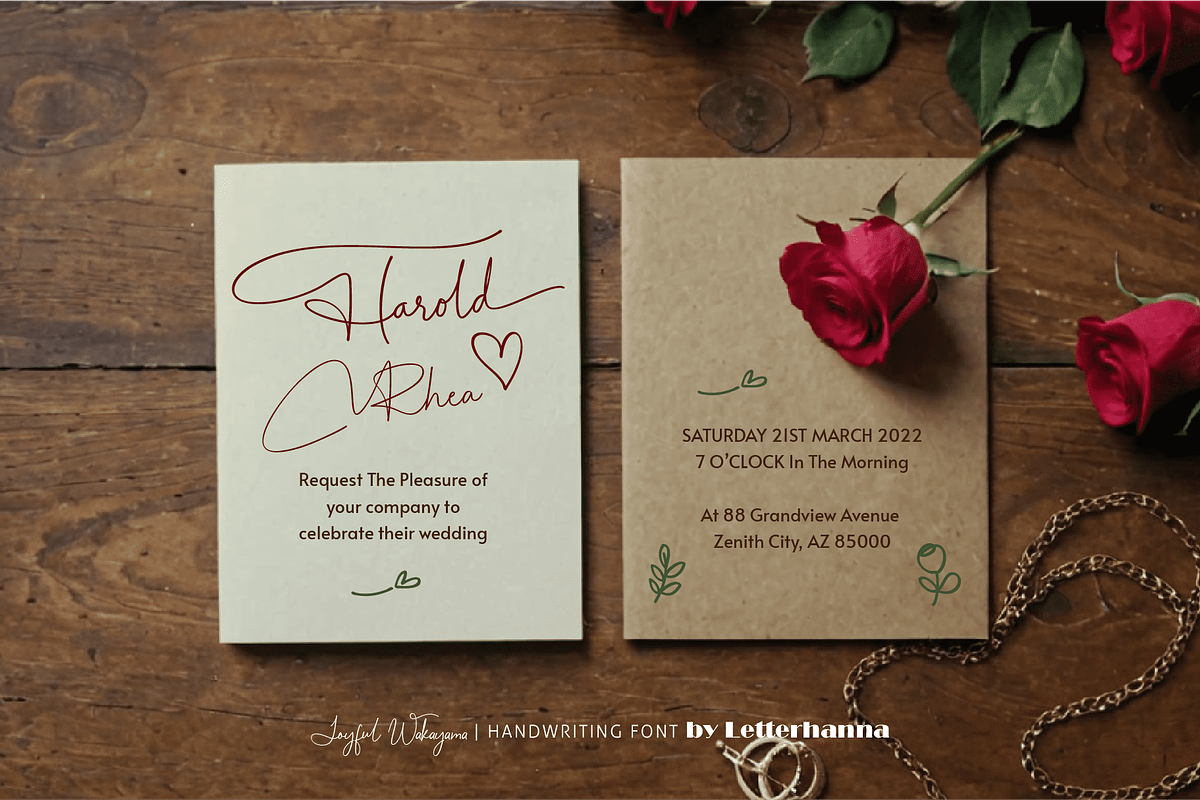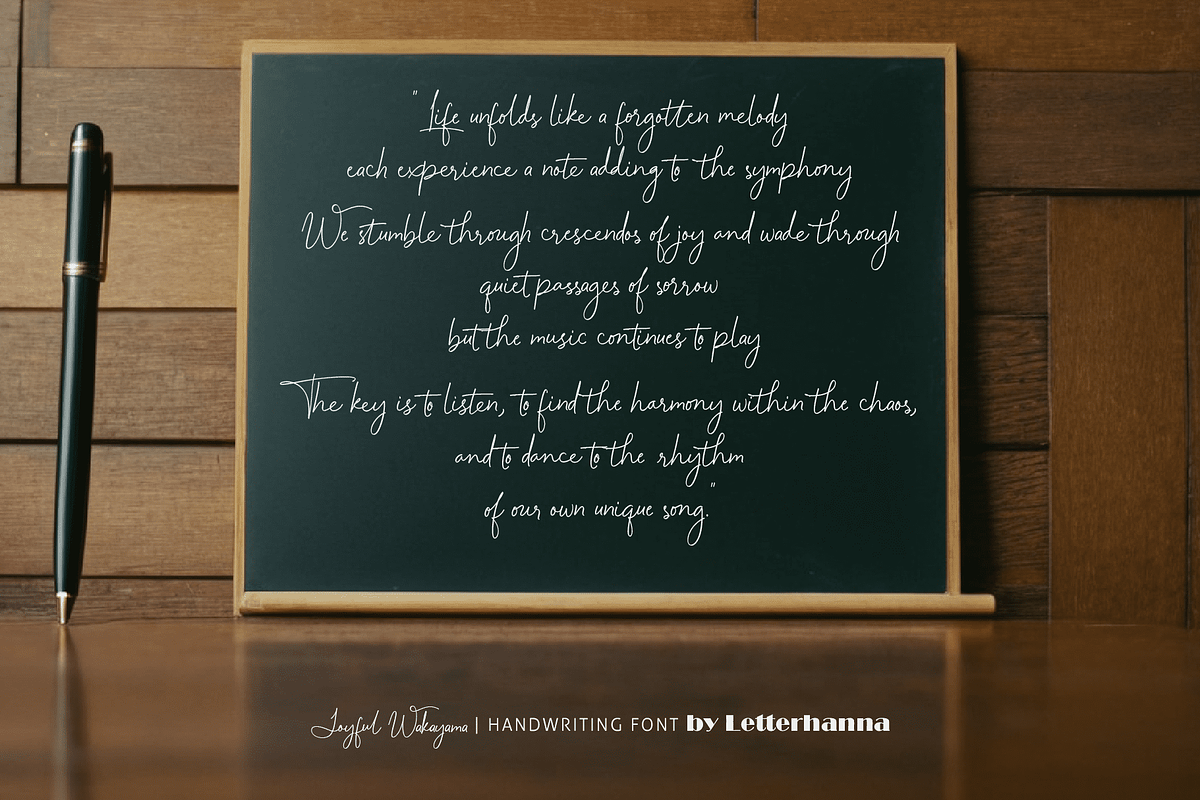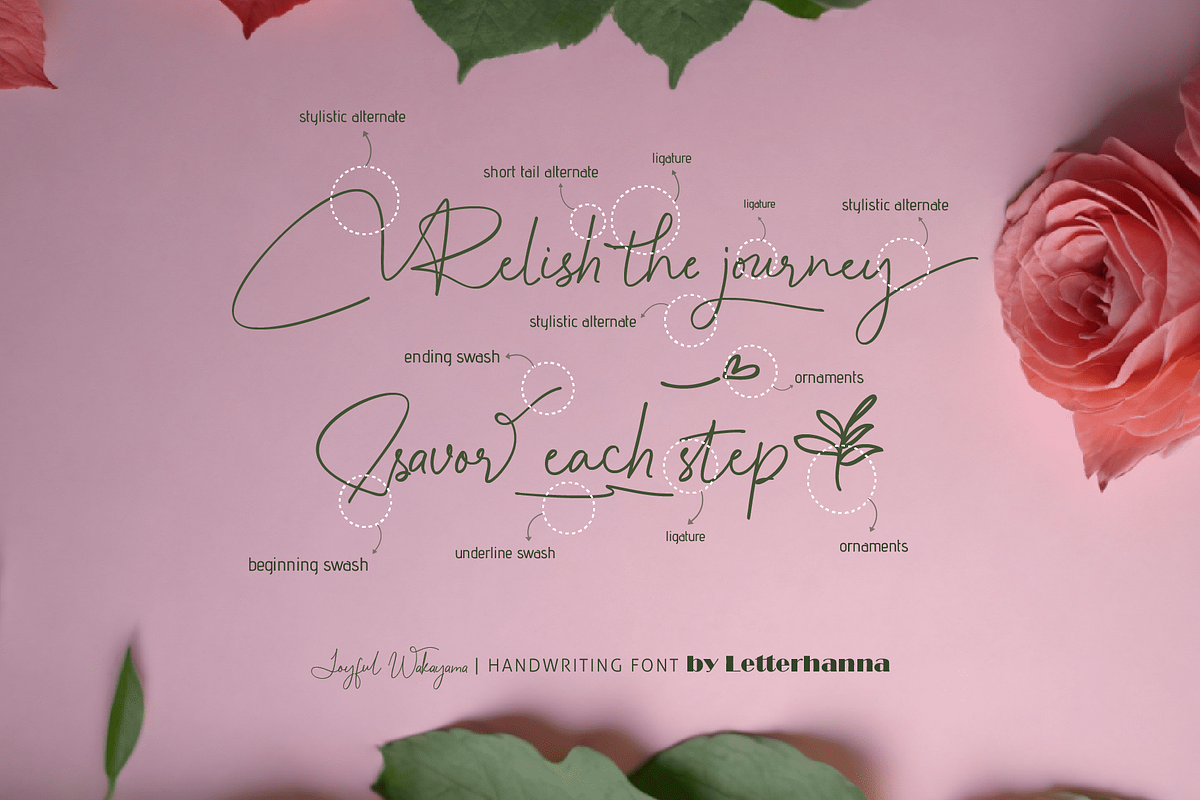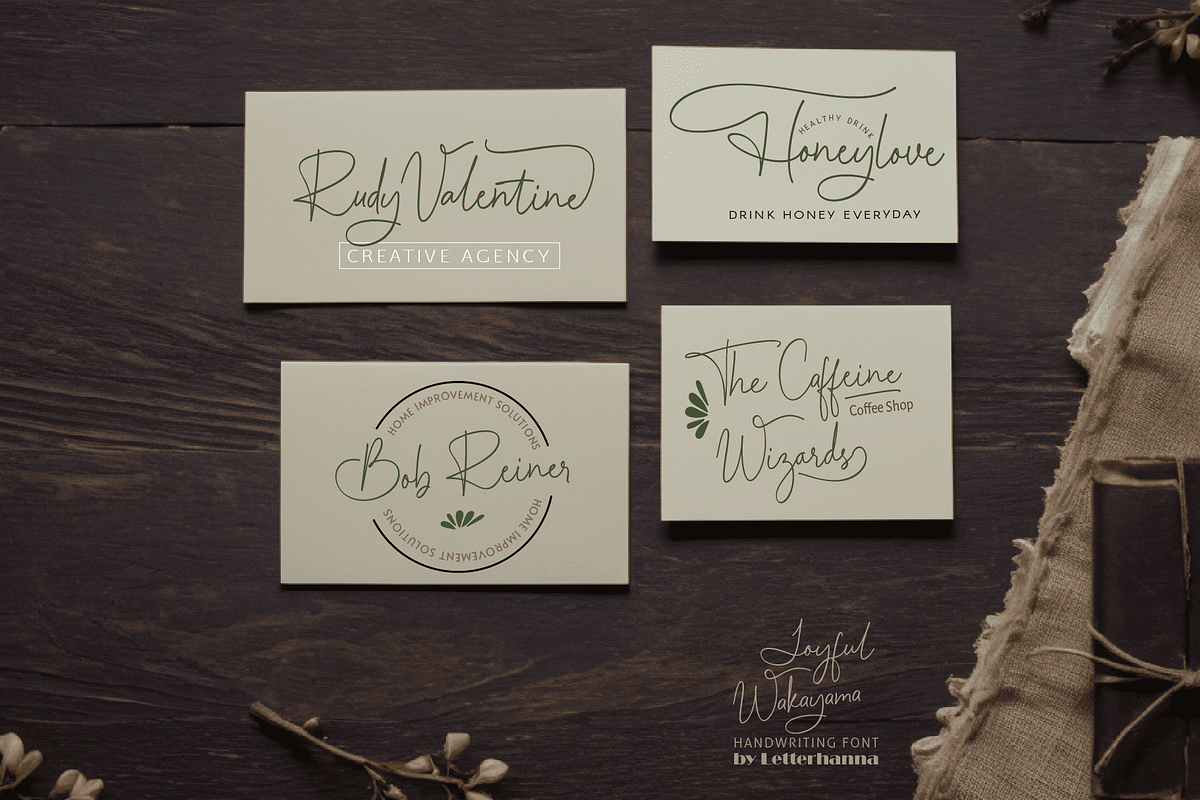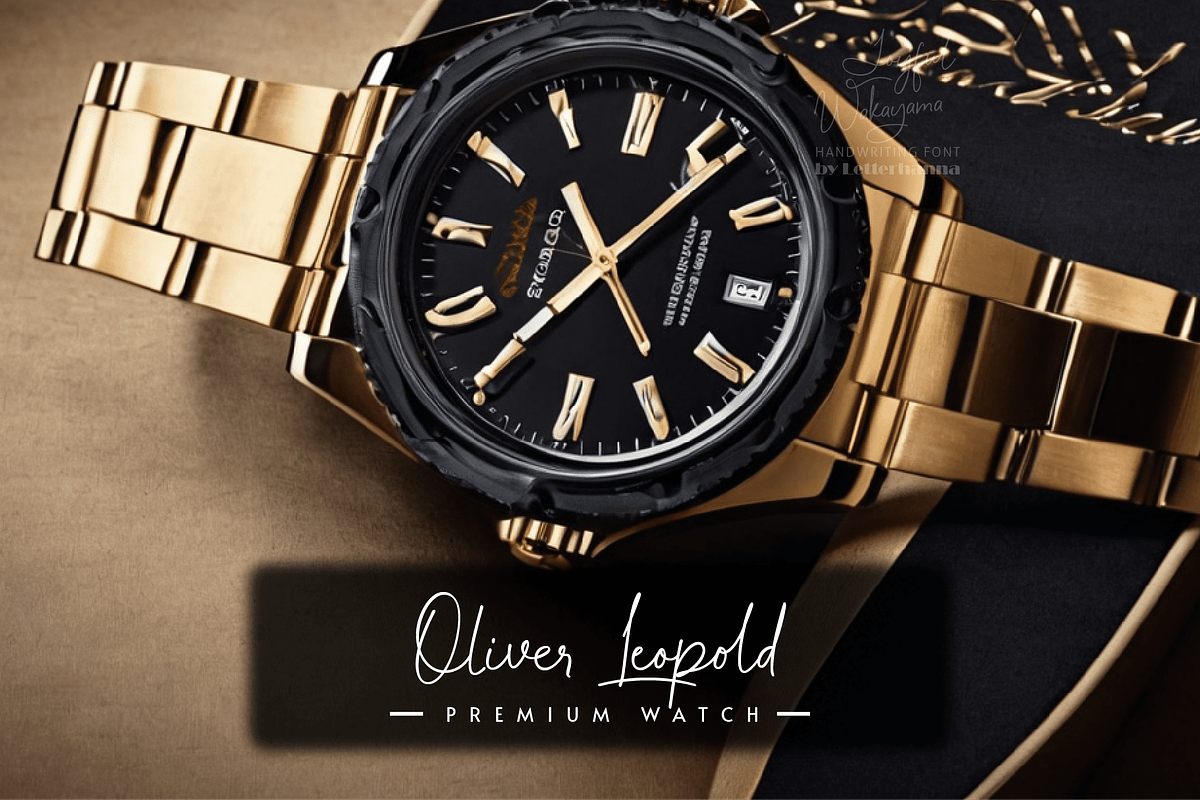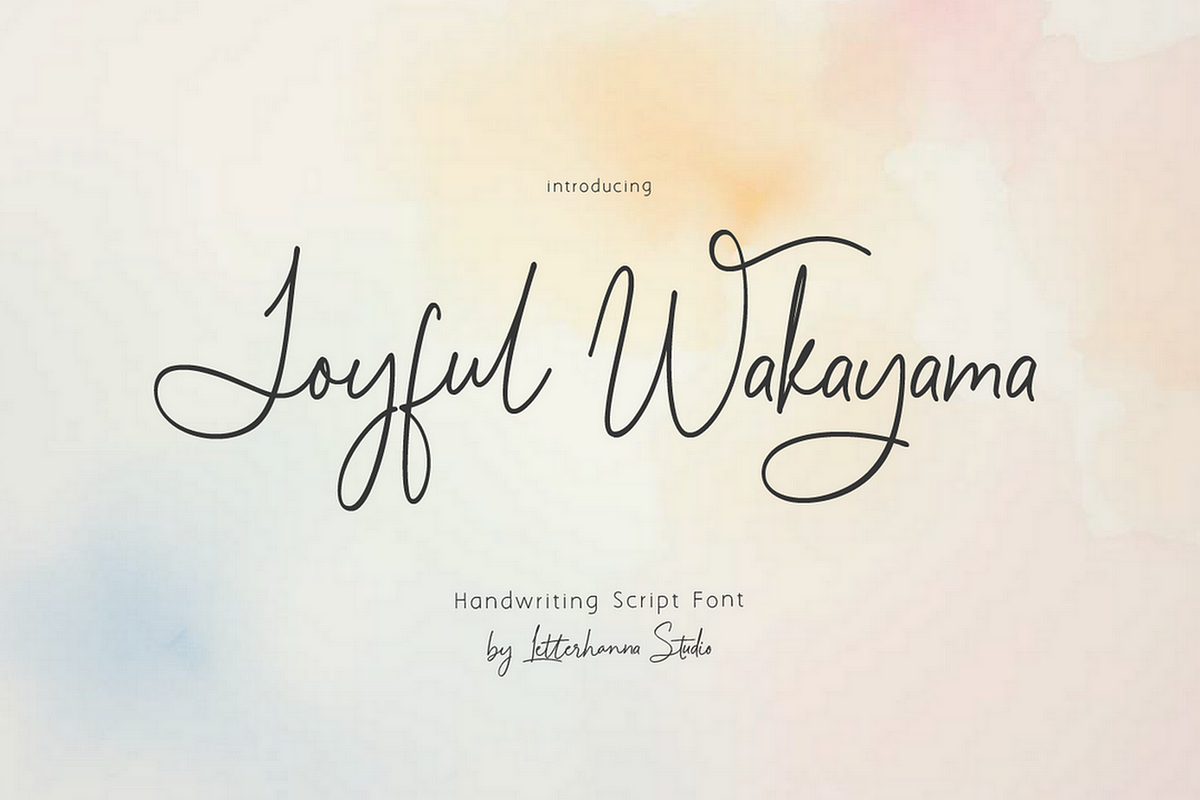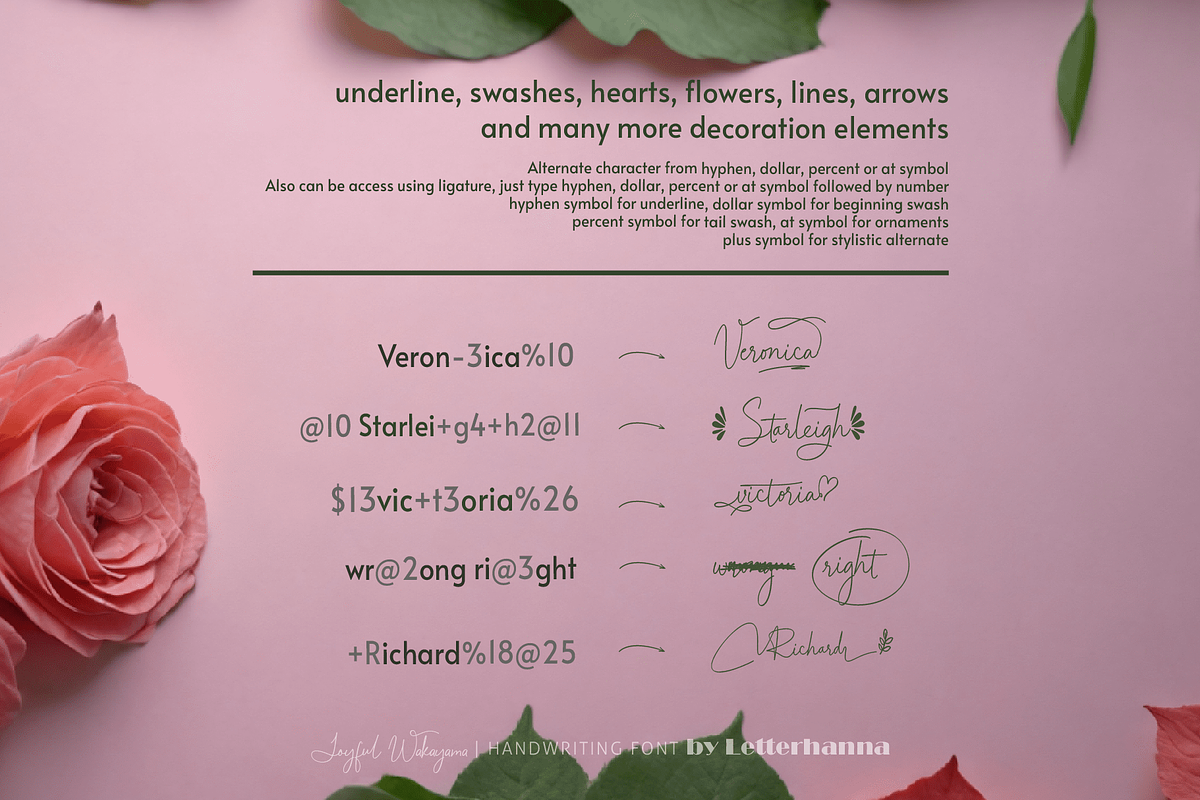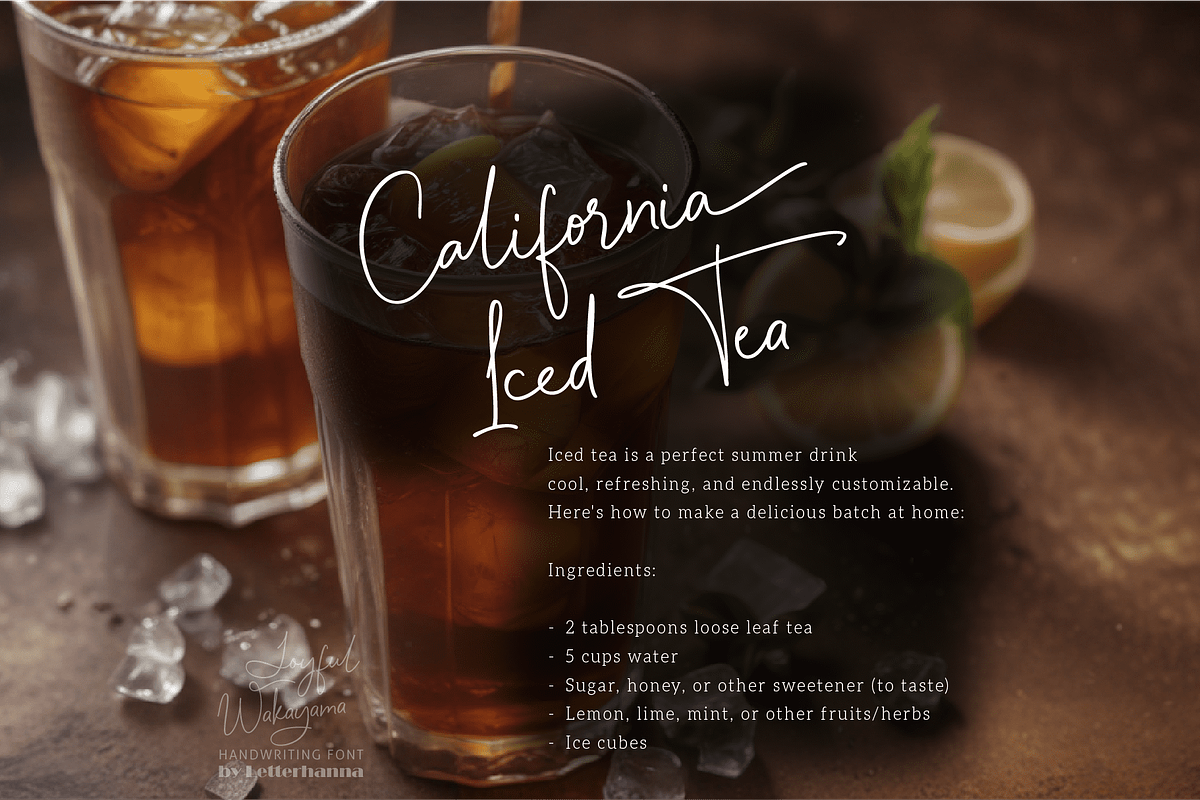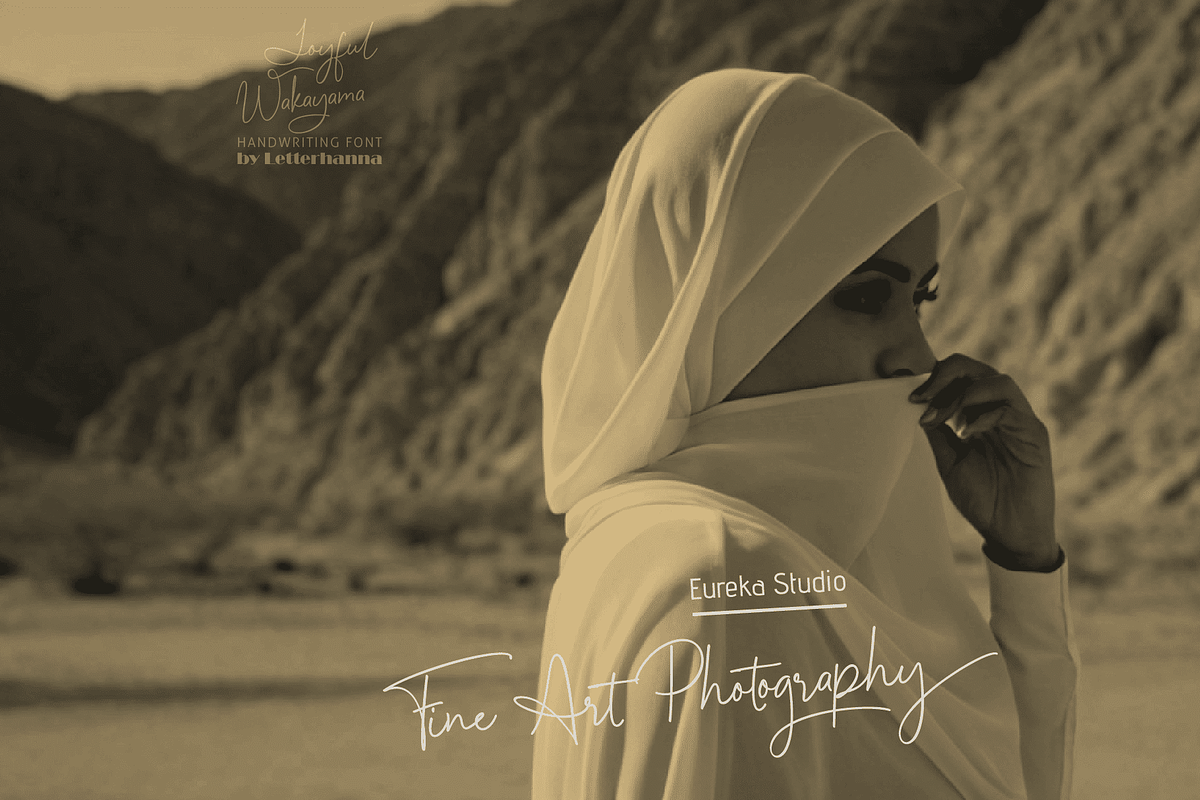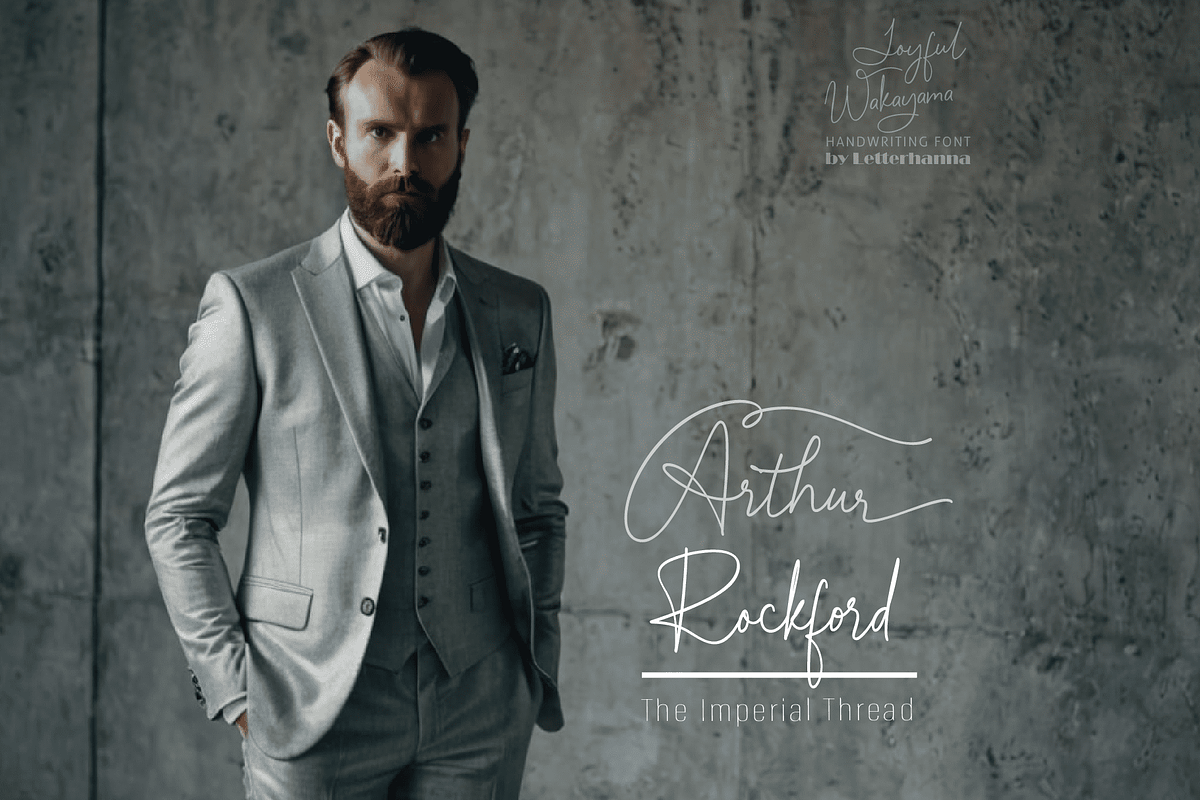
Joyful Wakayama Font
Unleash your inner wanderlust with "Joyful Wakayama," a brand new handwriting script font that captures vibrant spirit! This playful typeface dances across the page with its whimsical curves and delightful flourishes. Packed with a treasure trove of stylistic alternates, swashes, and ligatures, Joyful Wakayama allows you to express your creativity and add a touch of charm to any project.
From heartfelt greetings to playful invitations, Joyful Wakayama is perfect for injecting a dose of happiness into your designs. Let your imagination blossom and create truly unique pieces that radiate joy. Dive into the world of "Joyful Wakayama" and embark on a delightful design adventure!
Easy Access to Glyphs and Swashes
Accessing Stylistic Alternates
Stylistic alternates can be accessed by typing a plus symbol "+" in front of the original letter. For example, type "+a" to get the stylistic alternate of the letter a.
Accessing Swashes and Ornaments
Underline Swashes: Use a hyphen symbol "-" followed by a number between 1 and 30. For example, type "-3", "-22", or "-17" to get various underline swashes.
Head/Beginning Swashes: Use a dollar sign "$" followed by a number between 1 and 9. For example, type "$2" or "$8" to get different head/beginning swashes.
Tail/Ending Swashes: Use a percent sign "%" followed by a number between 1 and 30. For example, type "%3" or "%15" to get various tail/ending swashes.
Ornaments: Use an "at" symbol "@" followed by a number between 1 and 26. For example, type "@4" or "@13" to get different ornaments.
PUA Encoding for Ease of Use, which means you can access all the glyphs and swashes with ease!
Uppercase and lowercase letters
Numbers and punctuation marks
Beginning and ending swashes
Underline swashes
Stylistic alternates
Ornaments
Easy access to swashes using ligatures